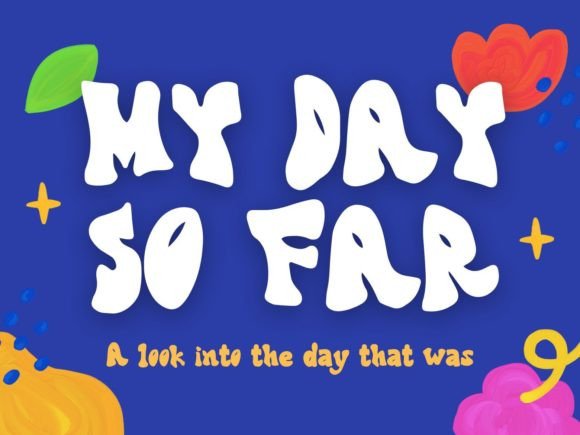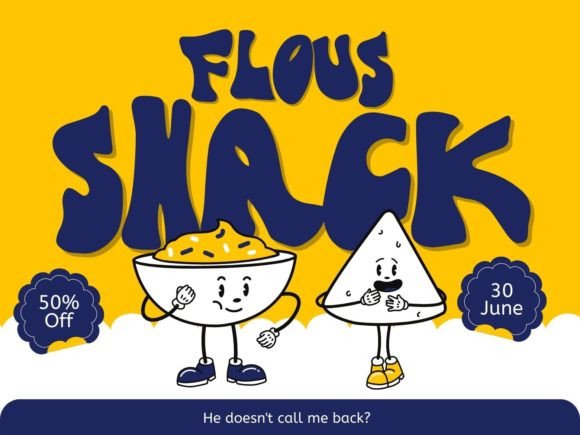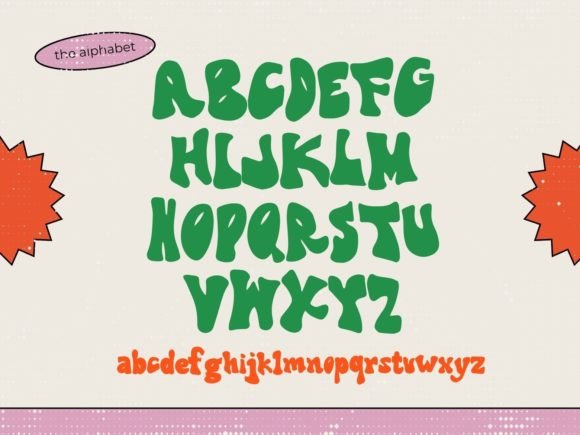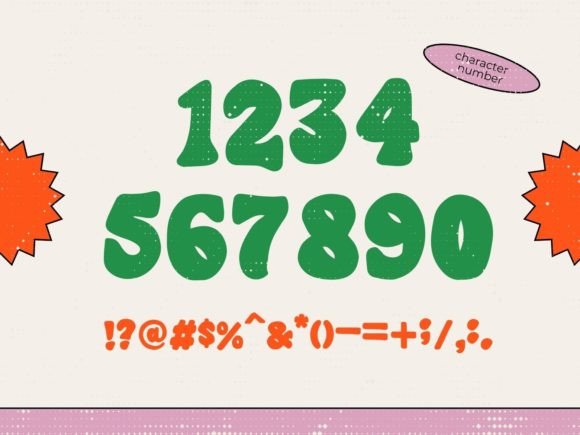
The Unmistakable Charm of Flous Font: A Designer’s Delight
I’ll never forget the time I was working on a project for a bold, modern brand, and I just couldn’t find the right font to capture their edgy personality. That was until I stumbled upon Flous Font. With its thick, powerful strokes and striking letterforms, it was love at first sight! In this article, I’ll share my experience with Flous, its unique features, and how to make the most of it in your designs.
An Honest Review of Flous Font
What I Love About Flous Font ✨
- 💥 **Bold and Impactful**: Flous Font is perfect for making a statement. Its bulky and fun display font style demands attention and conveys strength and confidence.
- 🎨 **Versatile**: Whether used for headlines, posters, or branding, Flous Font adapts seamlessly to different design contexts.
- 🌟 **Modern and Fresh**: The font’s modern aesthetic makes it an excellent choice for brands looking to convey a sense of innovation and forward-thinking.
- ✅ **Easy to Read**: Despite its bold style, Flous Font remains surprisingly legible, even at smaller sizes.
- ⚠️ **Limited Use Cases**: Due to its bold and attention-grabbing nature, Flous Font might not be the best choice for body text or more formal designs.
- 🤔 **Kerning Issues**: As with any font, some users have reported kerning issues when using Flous Font at very small sizes or in specific software.
Exploring OpenType Features and Glyphs 🔍
Flous Font comes with a range of OpenType features and glyphs that can elevate your designs. Experiment with:
- Stylistic alternates for varied letterforms
- Ligatures for a more creative, connected look
- Swashes and ornaments for added flair
The Story Behind Flous Font 📚
Flous Font was designed with the goal of creating a bold, modern font that would make a statement. Inspired by the urban landscape and the world of graffiti, Flous Font’s creator aimed to craft a font that would convey strength, confidence, and a sense of innovation.
| What is Flous Font best used for? | Flous Font is ideal for bold, attention-grabbing designs such as headlines, posters, and branding. |
| Is Flous Font suitable for body text? | While Flous Font is legible, its bold style makes it less suitable for body text. It’s best used for titles, headings, or short paragraphs. |
| Does Flous Font come with OpenType features? | Yes, Flous Font includes a range of OpenType features, including stylistic alternates, ligatures, and swashes. |
| Font Name | Flous Font |
| Author | maghrib |